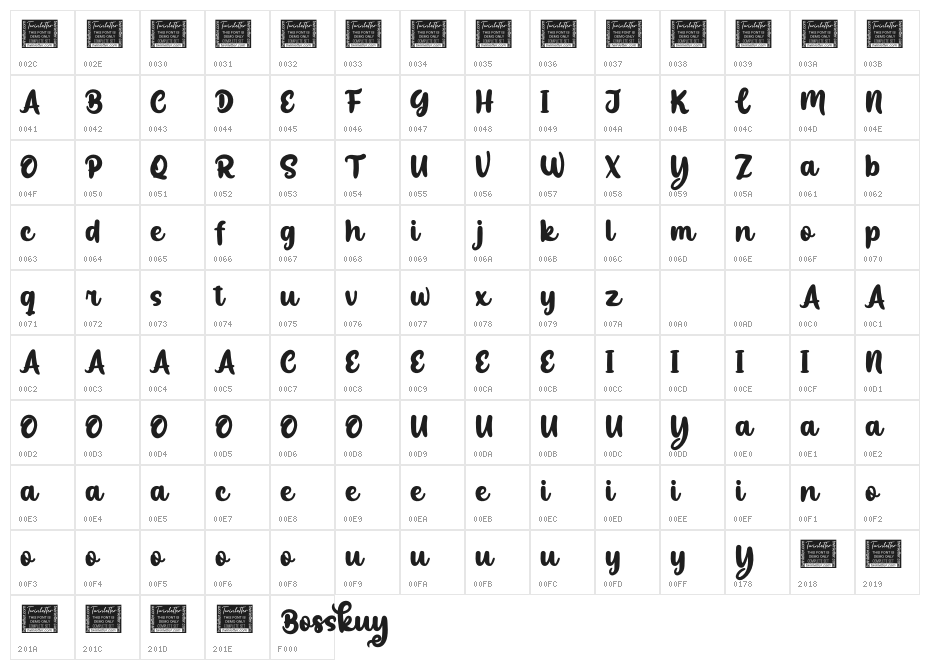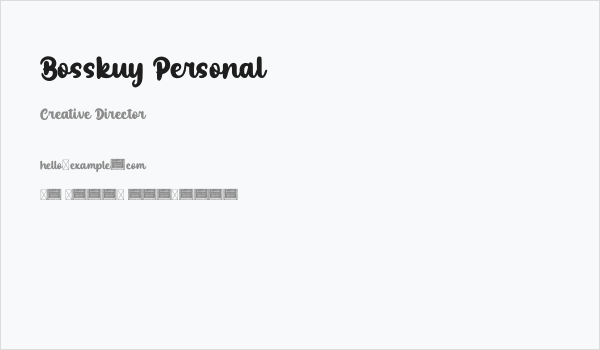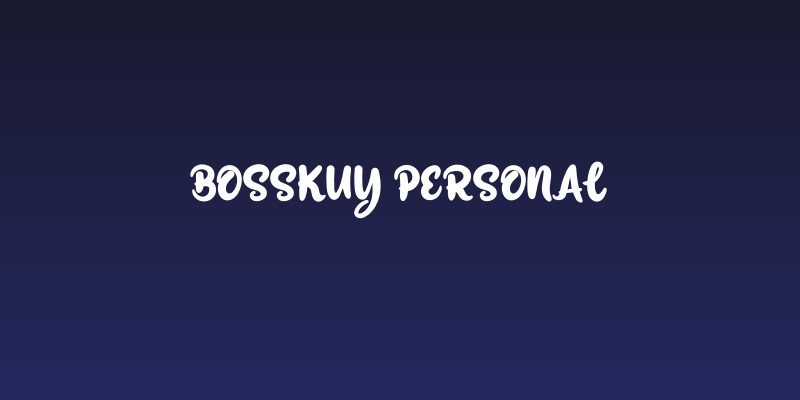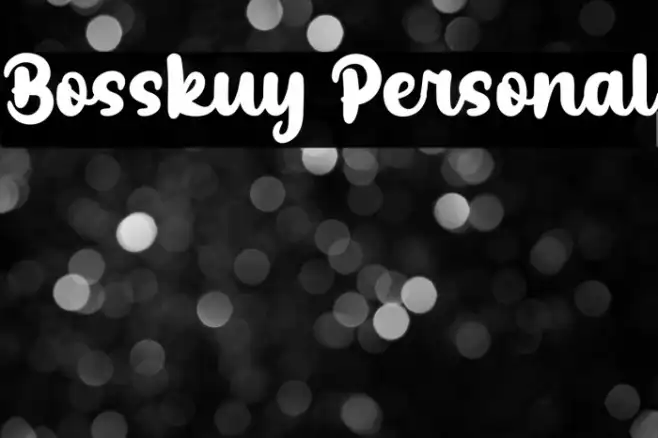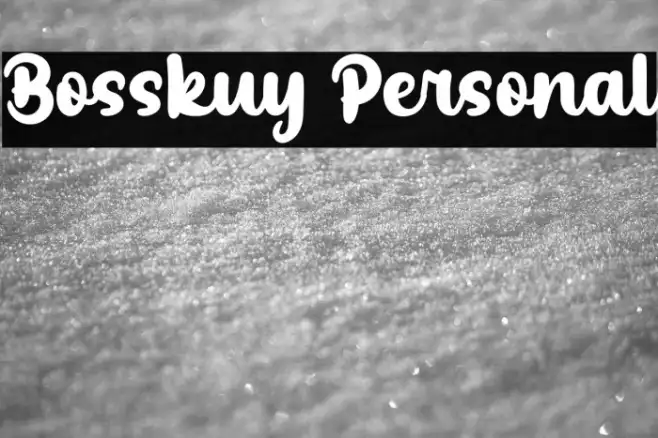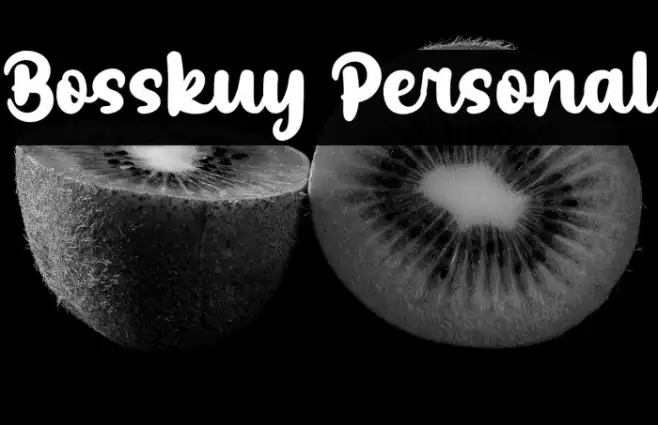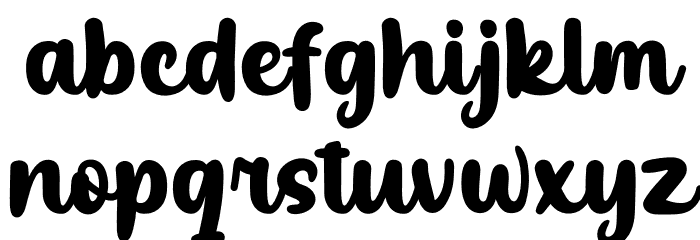
Bosskuy Personal Font
Bosskuy Personal Description
This font features a bold and playful script style with a handwritten feel. The characters are rounded and connected, giving it a smooth and flowing appearance. It has a casual and friendly vibe, making it suitable for creative and informal designs. The uppercase and lowercase letters maintain a consistent style, with a slight slant that adds to its dynamic look. The numbers and special characters are designed to match the overall aesthetic, ensuring a cohesive look across all text elements.
| Proposed Projects | Ideal for greeting cards, invitations, branding projects, and social media graphics. |